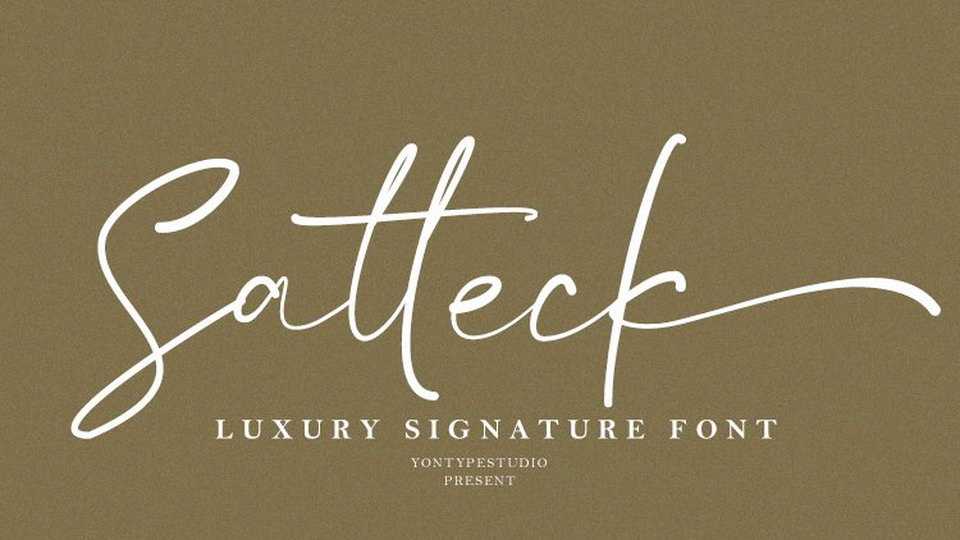
Download Satteck font, a chic modern calligraphy typeface with a magical emphasis. Satteck is perfect for creating a signature logo and watermark for a photography studio or wedding invitation, best for a scratch logo or brand signature.
Designer: YonTypeStudioCo